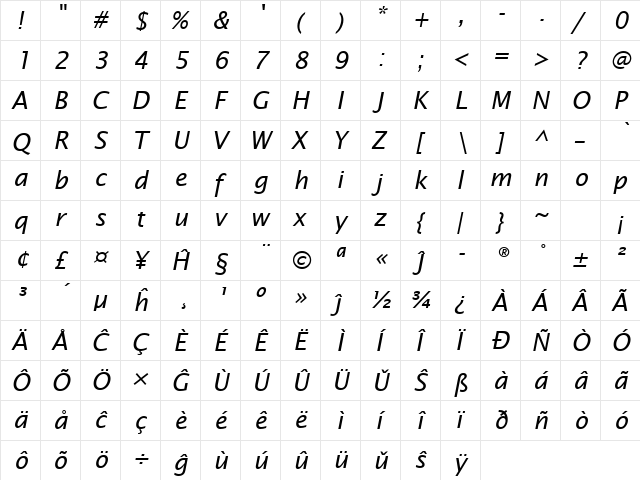
Lucida Sans Eo Italic
Design Context for Lucida Sans Eo Typeface
Lucida Sans Eo takes a measured approach to typography — its balanced proportions and neutral character make it a reliable workhorse for both digital and print work. The dynamic lean of this cut emphasises speed and emphasis in any layout.